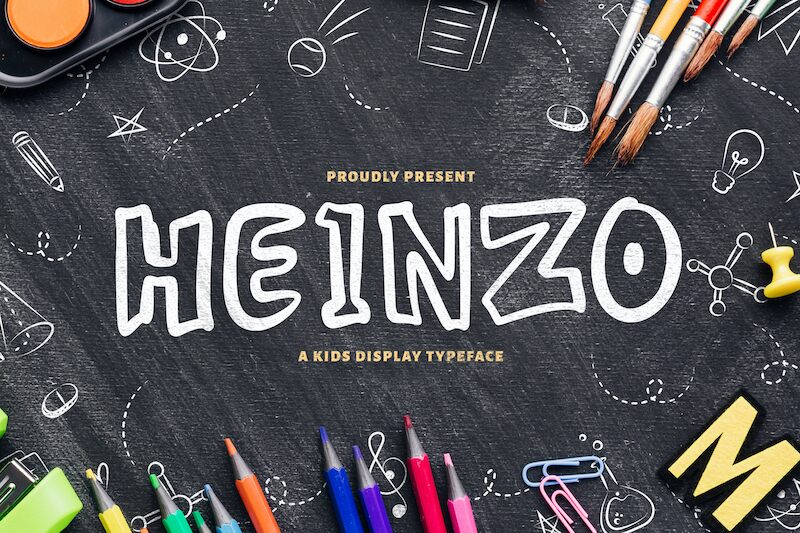
HEINZO
Introducing HEINZO, a bold, kids cartoon display font designed by Virgiawan Listanto in 2021. Perfect for creating fun and vibrant projects such as children's books, cartoons, greeting cards, and more.